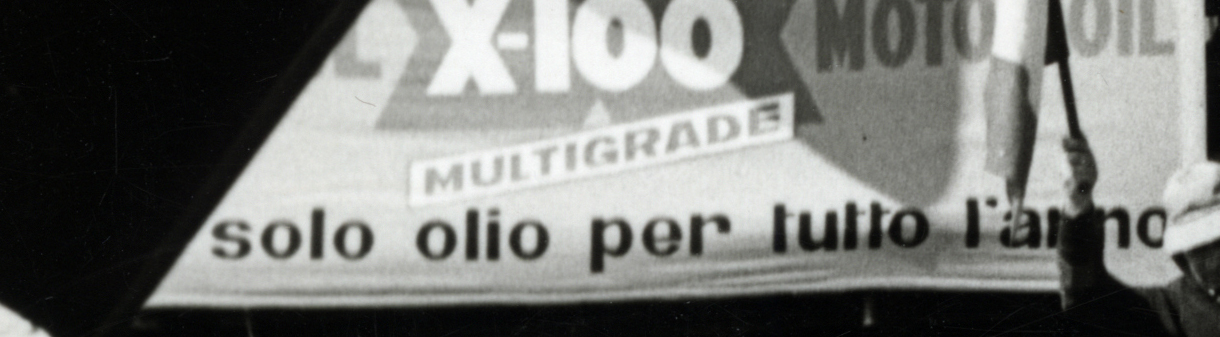
It’s from a SHELL X-100 Oil advertising “Un solo olio per tutto l’anno”
“Sgt Peppers Lonely Hearts Club is a sans serif and art deco font family. This typeface has three styles and was published by K-Type.”